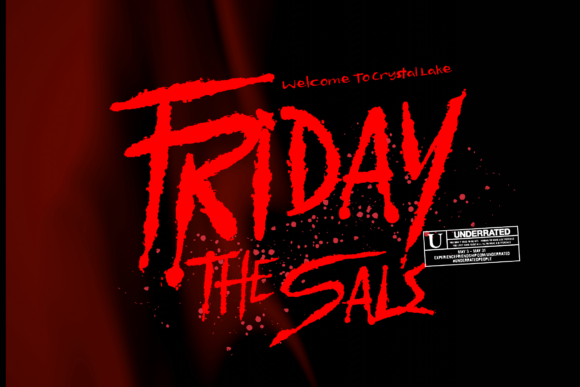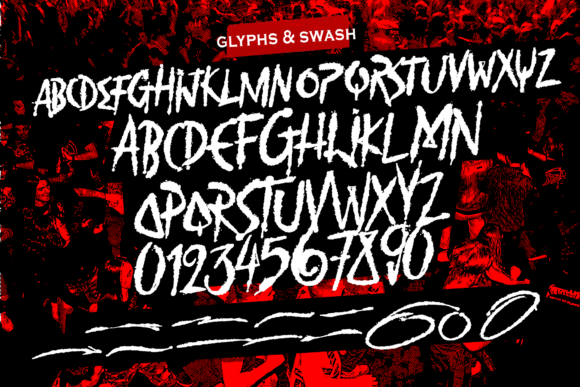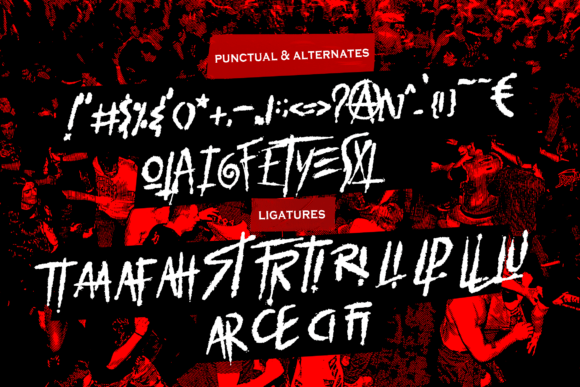
Introduction to Nocture Font
Have you ever been working on a creative project, pouring your heart and soul into it, only to be interrupted by a sudden burst of inspiration? For many designers, that moment comes when they stumble upon the perfect font to bring their vision to life. And if you’re a fan of the dark and eerie, you might just be in luck with the Nocture Font.
This haunting typeface is not for the faint of heart, evoking fear and tension with its jagged edges, distorted shapes, and unsettling designs. From mimicking blood splatters to scratch marks, the Nocture Font creates an eerie atmosphere that’s sure to send chills down your spine. And the best part? It’s a valuable design resource that’s free to download, making it a must-have for any creative project that needs a touch of darkness.
With its high-quality design and transparent background, the Nocture Font is perfect for designers who want to add a layer of sophistication and unease to their work. Whether you’re working on a horror movie poster or a creepy novel cover, this font is sure to deliver the desired effect.
Key Features of Nocture Font
- High-quality design resource ideal for creative projects, offering a unique and elegant aesthetic.
- Features a transparent background, allowing for seamless integration with any design or background.
- Includes a range of styles and weights, providing versatility for a variety of design applications.
- Designed with a focus on readability and legibility, making it suitable for both digital and print use.
- Comes in a high-resolution format (300 DPI), ensuring crisp and clear text even when scaled up.
- Perfect for designers looking for a high-quality, free font to enhance their creative projects.
Honest Review: Nocture Font
I recently had the chance to work with the Nocture Font, and I must say it’s been a game-changer for my design projects. This high-quality font is a valuable addition to any design resource collection.
What works well: ✨ The Nocture Font offers a wide range of styles and weights, making it perfect for creative projects that require a bit of flair. I particularly love the transparent background option, which allows for seamless integration with other design elements.
- Wide range of styles and weights
However, I did encounter a few limitations: ⚠️ The font can be a bit slow to load, especially on older systems. Additionally, the documentation could be more comprehensive, which might be a challenge for beginners.
Overall, I’m thoroughly impressed with the Nocture Font. Its high quality and versatility make it an excellent choice for designers looking to elevate their creative projects. If you’re looking for a reliable design resource, I highly recommend giving it a try.
Tips for Getting the Most Out of Nocture Font
For the best results, use Nocture Font on a high-quality design resource. Experiment with different font sizes, colors, and styles to find the perfect combination for your project. You can also use Nocture Font in conjunction with other design elements to create a unique and eye-catching design.
Nocture Font is perfect for use in a variety of creative projects, including brochures, flyers, business cards, and presentations. Its elegant and sophisticated design makes it ideal for use in professional and formal settings.
Can I use the Nocture Font with a transparent background?
Yes, the Nocture Font has a transparent background, making it perfect for designs that require a subtle, high-quality look. To use the font with a transparent background, simply apply the font to your design and set the background color to transparent or use a design software that supports layer styles and transparency.